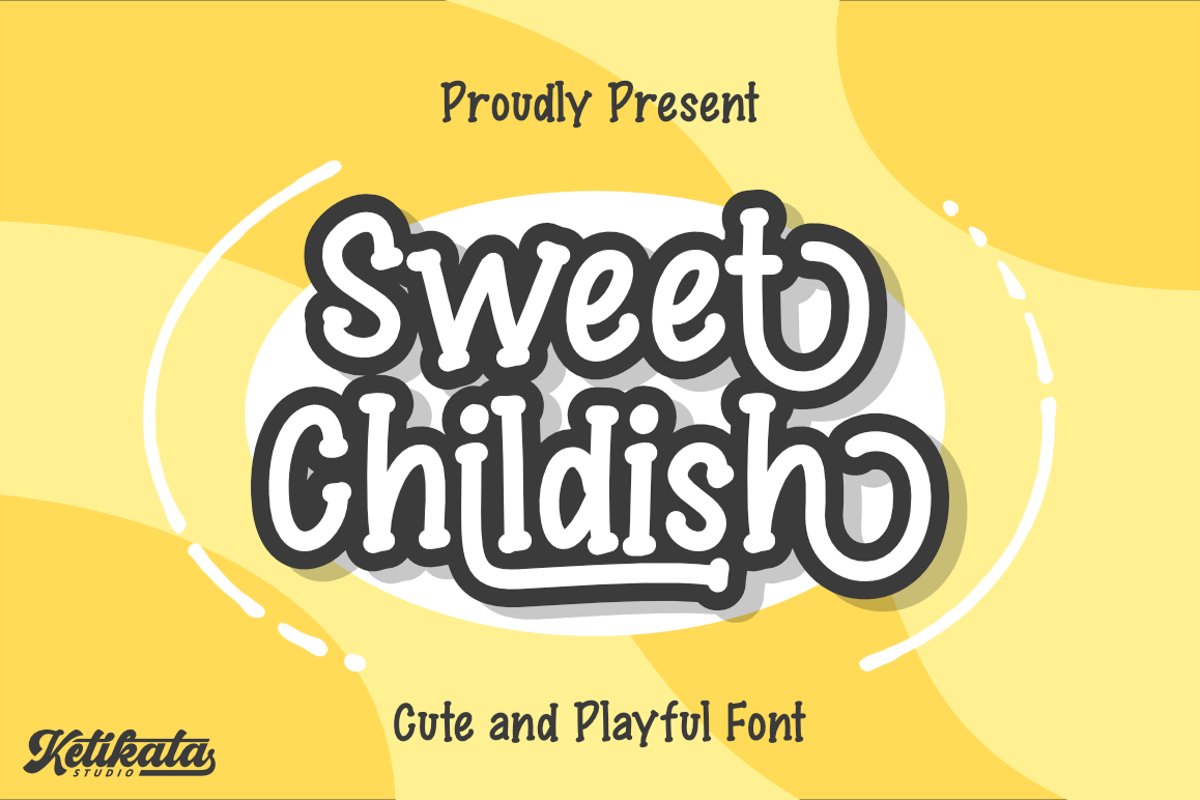
Sweet Childish Happy font
Sweet Childish
Sweet Childish is a sweet playful font, Sweet Childish inspired by Kids style this font is a fun theme very good for display, branding, poster, logotype, t-shirts, hoodies, quotes, product packaging, or anything that needs a typographic turbo-boost and you’ll get a unique swash to accompany the font.